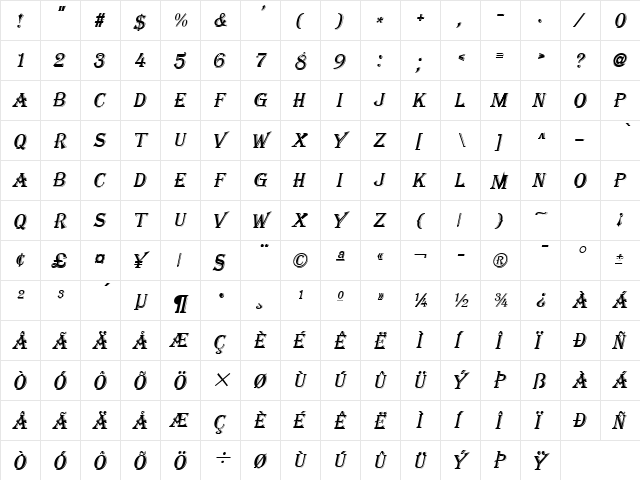
Tangiers Italic
Design Context for Tangiers Typeface
Tangiers takes a measured approach to typography — its balanced proportions and neutral character make it a reliable workhorse for both digital and print work. The dynamic lean of this cut emphasises speed and emphasis in any layout.
Pro Tip: Use Tangiers for emphasis, pull quotes, and subheadings where its slanted energy can add rhythm to the layout.